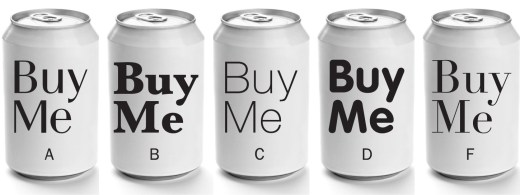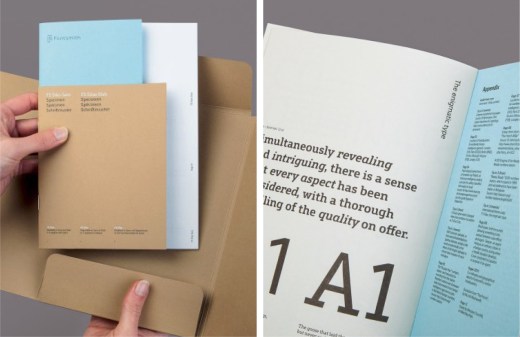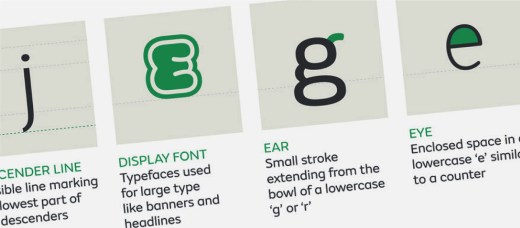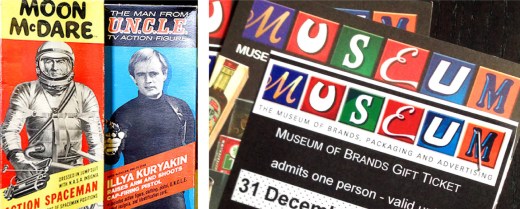
We are all type consumers and letterforms are woven into the rituals of our lives through the packaging on the products that we use every day. At the time we may pay little attention as the logos and product names are so familiar that we reach for them almost unconsciously. Take a trip to a supermarket and, instead of shopping, look at the packaging as if it is on show in a design museum.
The Museum of Brands in West London contains a time tunnel that documents the history of packaging, revealing the trends and fashions in type decade by decade for over a century.
Fontsmith type specimens
At the opposite end of the process is the designer, who must be aware both of the nonverbal information being communicated by the typeface, and the intricacies of skilful typesetting.
‘Typography in 10 Minutes’ by Matthew Butterick explains the fundamentals of good typography.
London based type foundry Fontsmith create fonts for licensing and design bespoke typefaces for brands. You can read about the design process on their blog and a comprehensive type terminology chart is available here.
Type specimen sheets showcase a new typeface release—explaining its history and design features, along with many of the glyphs that often remain hidden since they don’t feature on a keyboard. We have a selection of printed Fontsmith type specimens for you to look at, and you can take one home at the end of the session.
Tasting notes
During the workshop you will explore how your choice of typeface combines with the words to convey additional meaning. For example, are some typefaces associated with cheaper and more expensive products? Which type styles suggest an activity might be easier or harder to do? Can the choice of typeface convey that an article is better researched?
In the workshop you will take part in experiments that answer these questions. You will compare your answers to the results of Type Tasting surveys. You will create your own set of tasting notes that you can refer to in future to enable you to choose type with confidence.
• LEARN an easy 3-step process for choosing a typeface.
• FIND OUT why different fonts are suitable for different occasions.
• UNDERSTAND how a font can look cheap, expensive, calm, angry or even alter your experiences.
• CREATE your own ‘tasting notes’ to refer to when choosing fonts.
What’s Your Type?